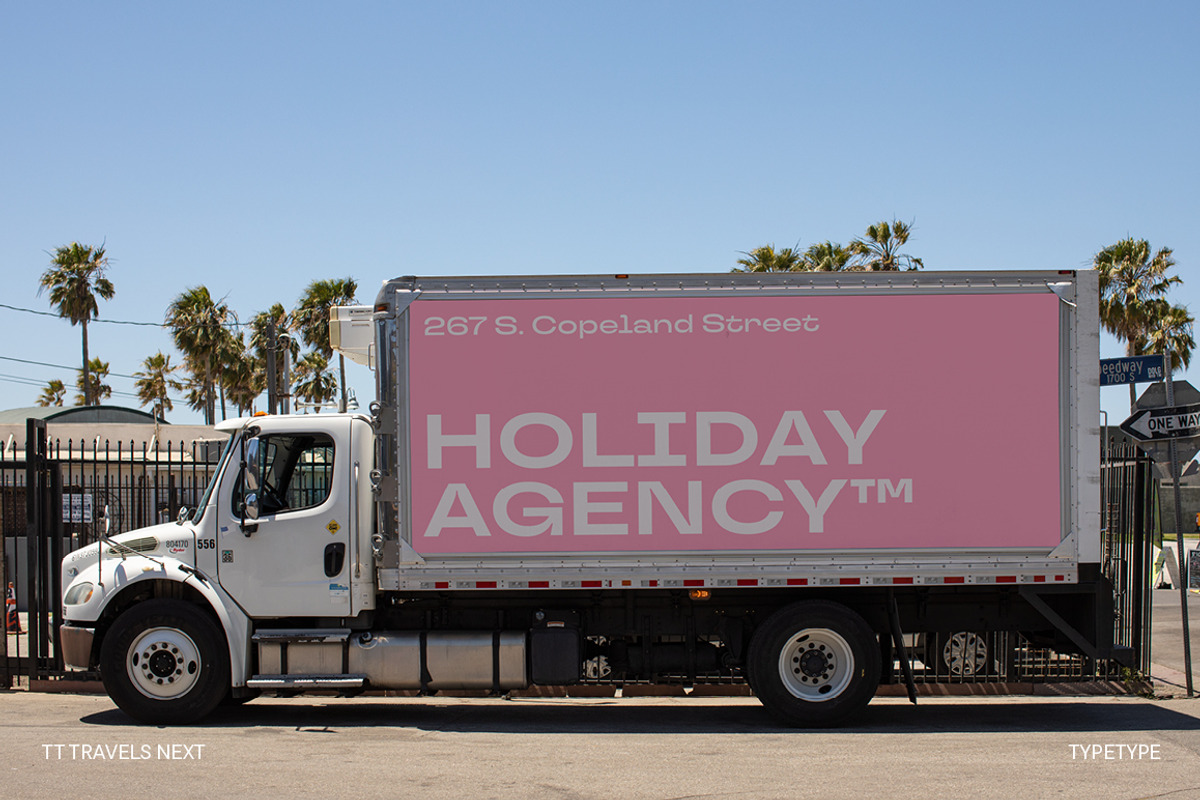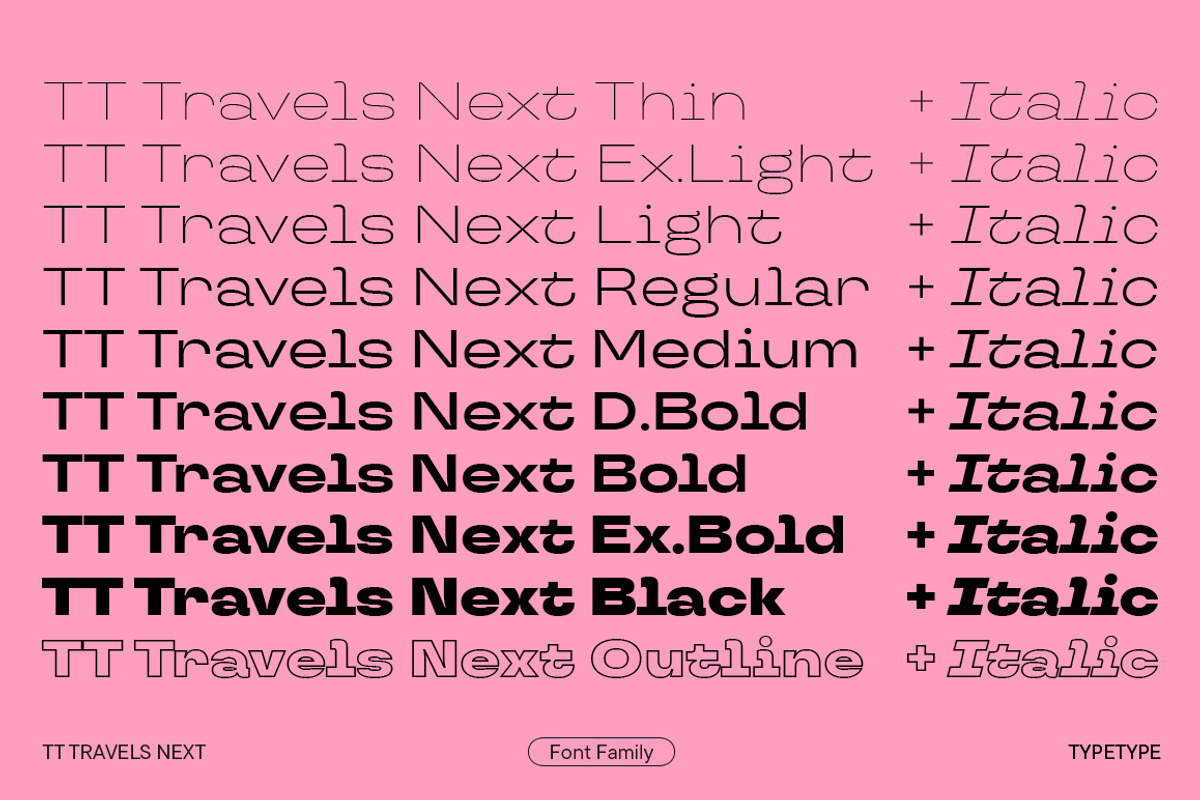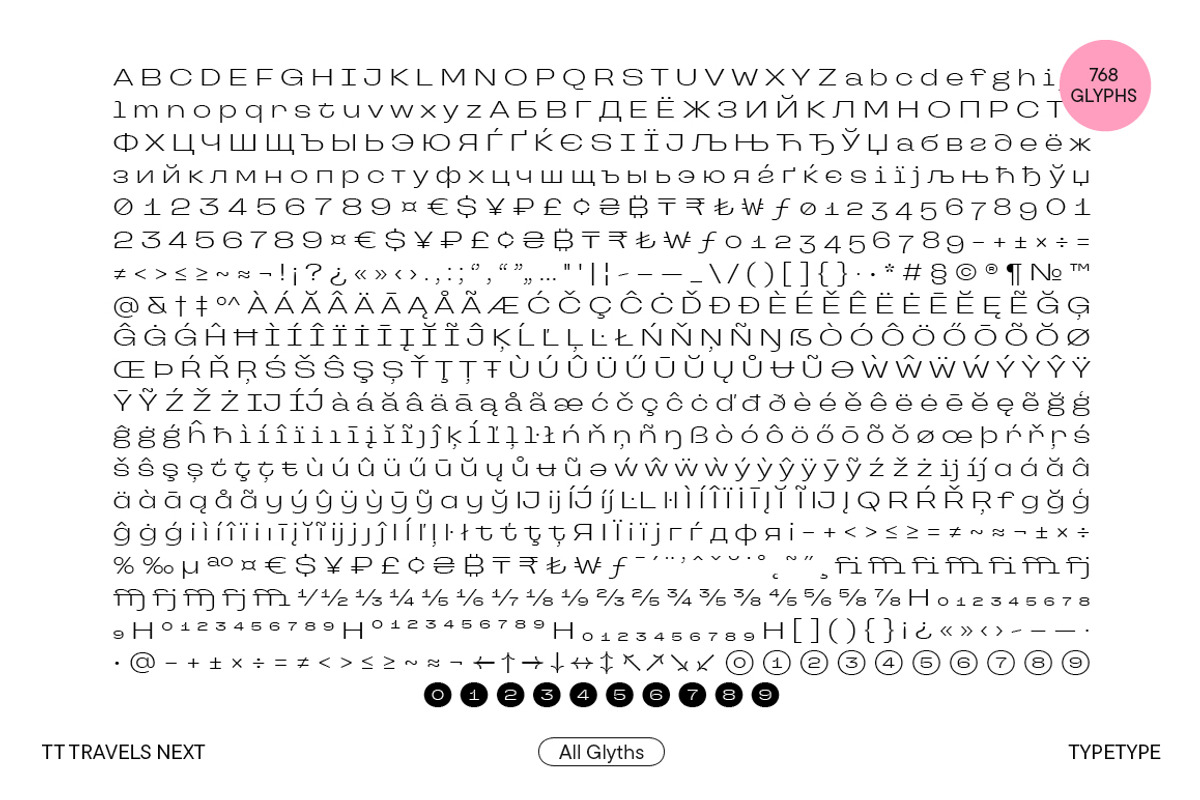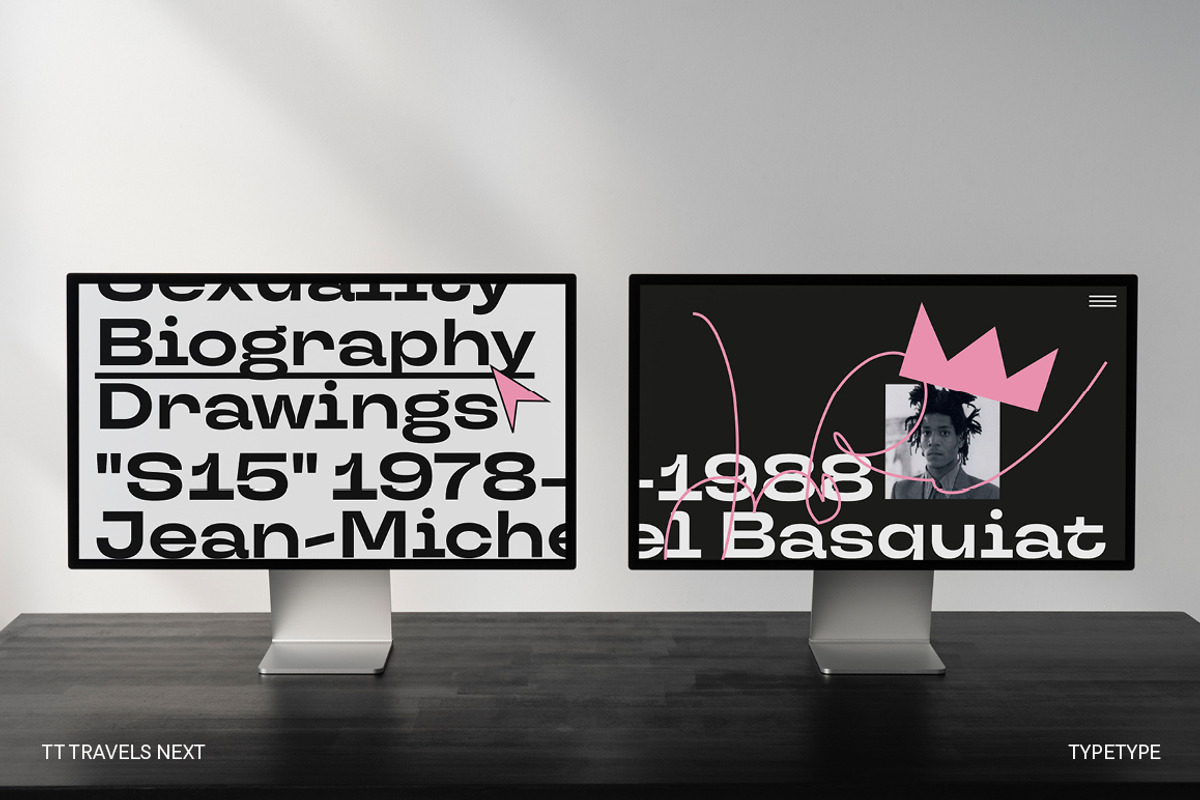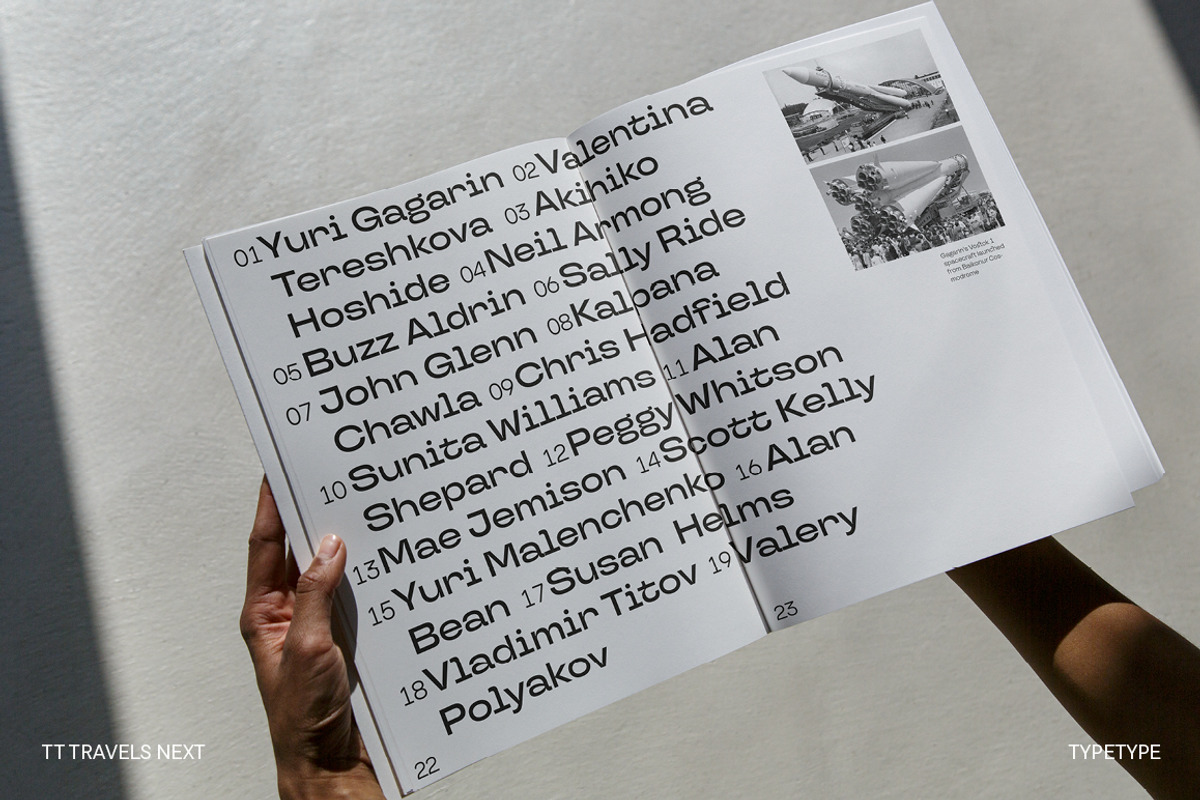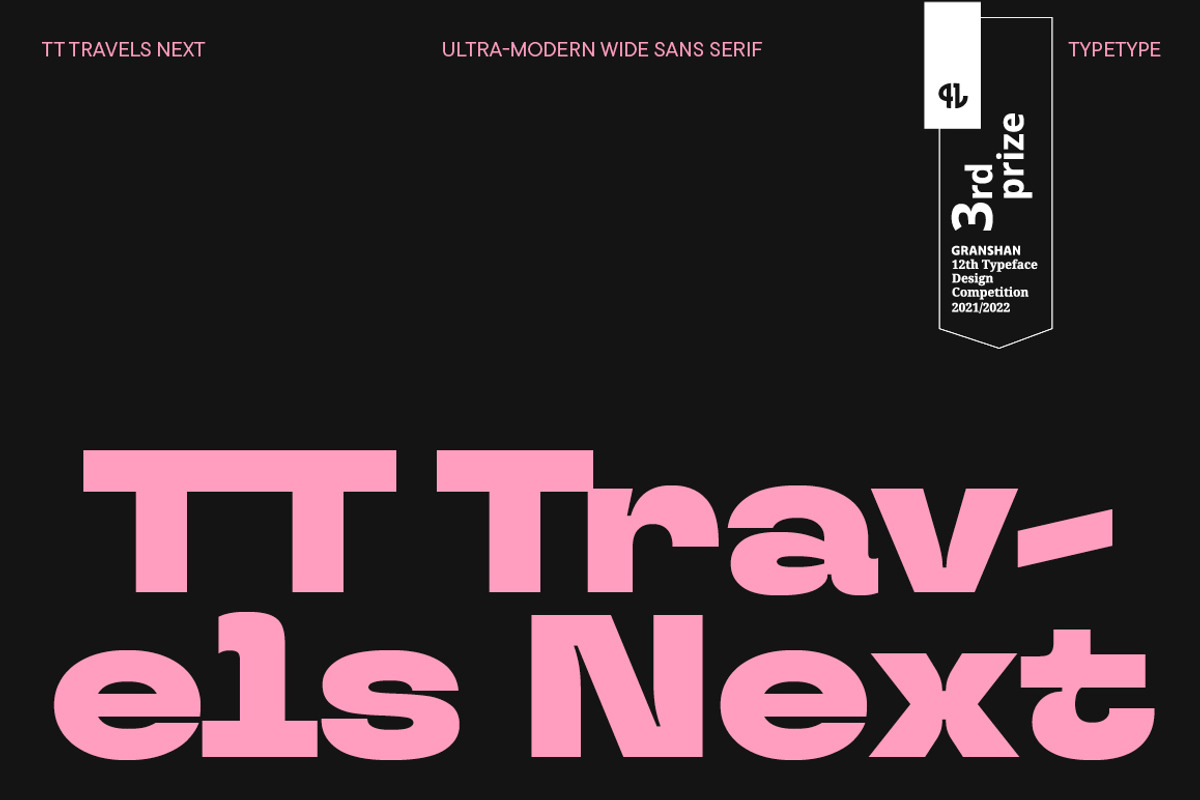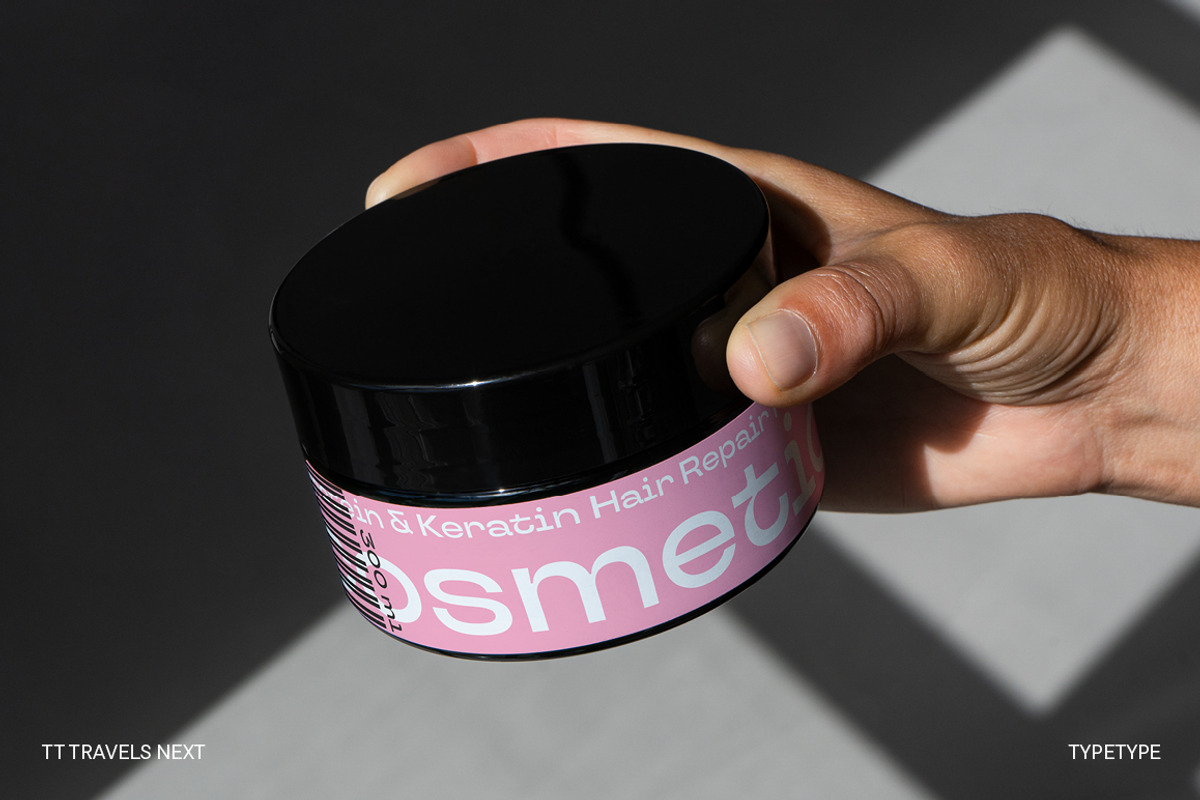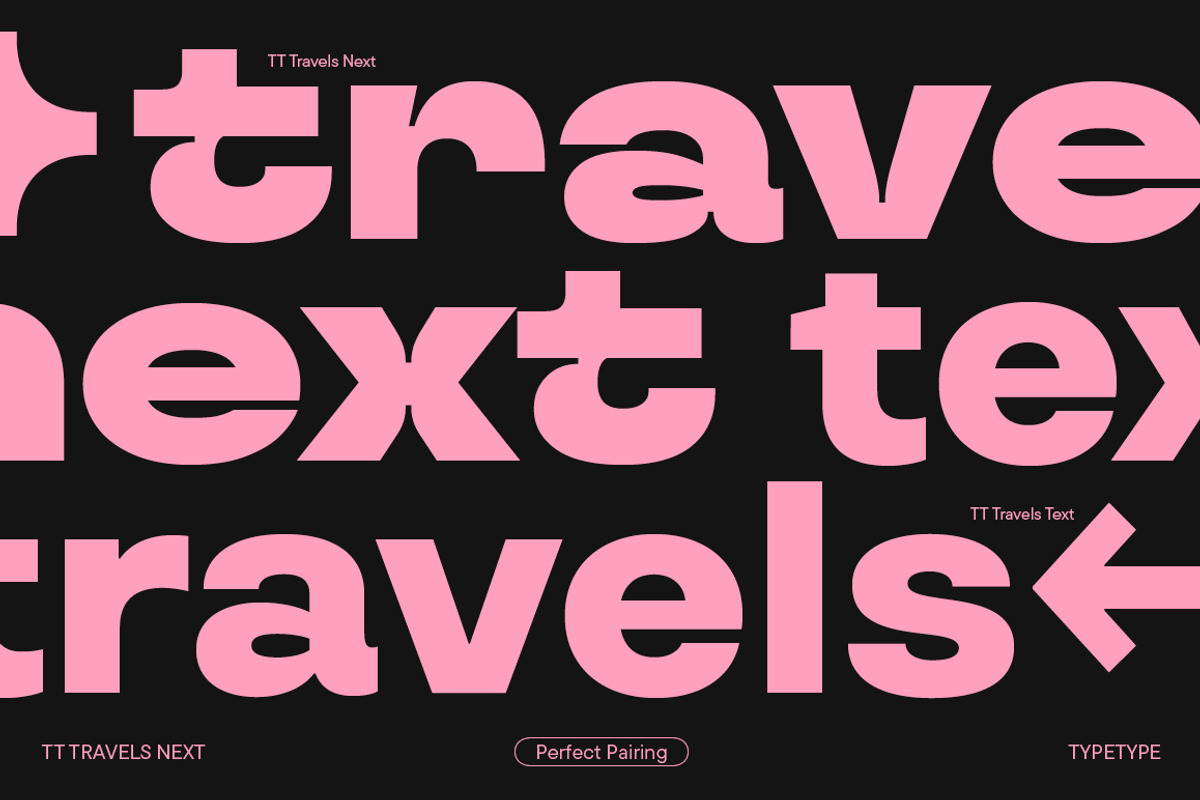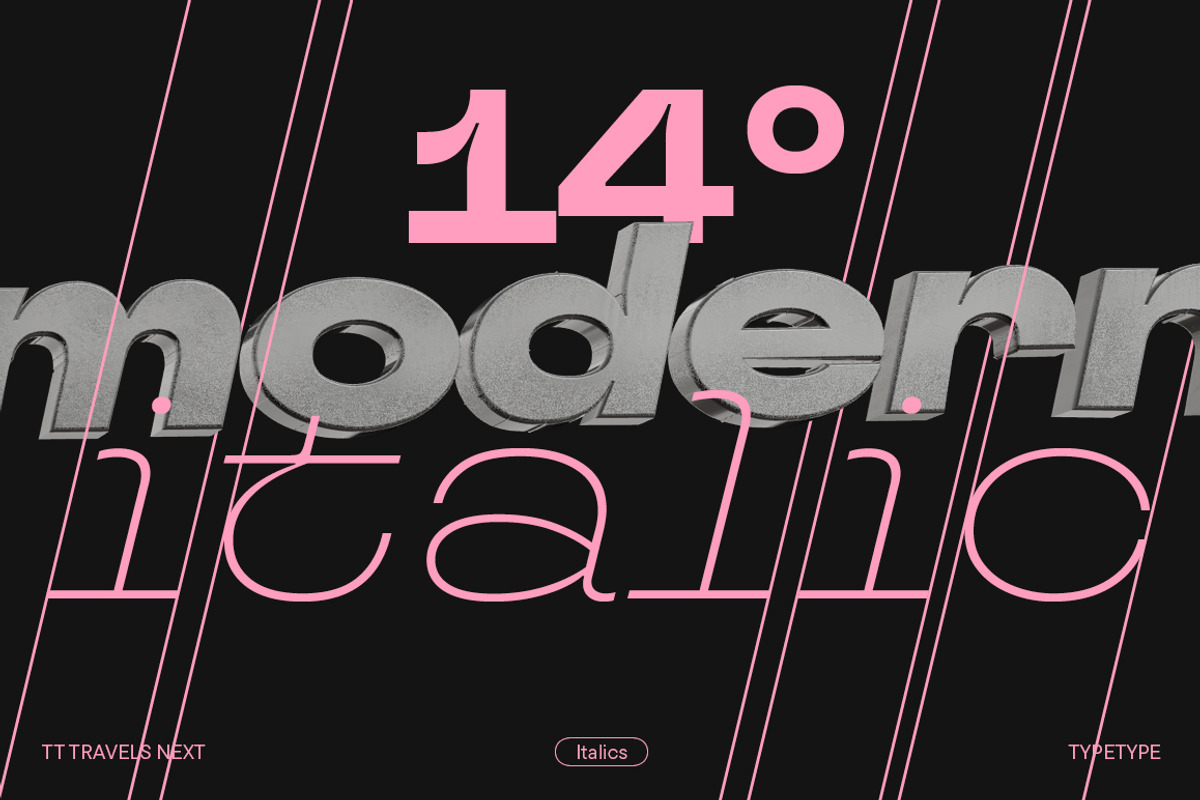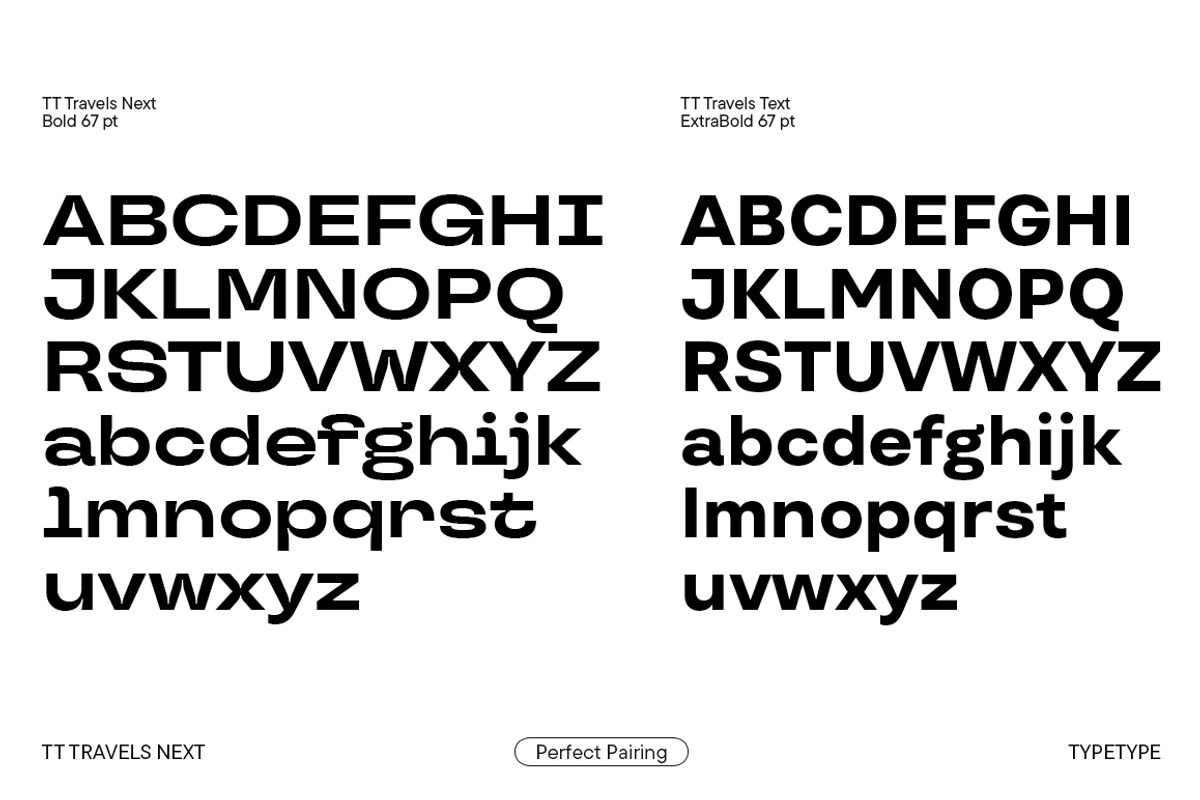
TT Travels Next
Introducing TT Travels Next—an experimental display typeface based on the original TT Travels!
TT Travels Next is an ultra-modern, wide sans serif. Wide proportions are one of the typeface’s distinctive features: there is almost no glyph narrowing when transitioning from bold to thin font styles. Besides, the font stands out for its extra closed aperture, low contrast, and noticeable ink traps. Interestingly, TT Travels Next does an exceptional job blending smooth and sharp forms, which makes it highly versatile, unusual, and attractive. We also increased the slant angle of the Italic font styles to 14 degrees so you can create a crisp and dynamic text look.
When designing TT Travels Next, we aimed to explore what the original TT Travels would look like if it were transformed into a rebellious and straightforward punk, rejecting its conformity and compromise. So, we infused the new typeface with a radical personality and put its expressive elements in the spotlight.
This stylish and ultra-modern typeface is a perfect match for working with layouts, be it printing or web formats. TT Travels Next has two outline font styles that complement the roman ones perfectly and can also serve as accent fonts. In addition, we implemented a variable font with weight and slant variation axes, allowing designers to adjust the font to fit their needs or requirements.
TT Travels Next includes:
- 21 font styles: 9 roman, 9 italic, 2 outline styles, and one variable font;
- 757 characters in each font style;
- 26 OpenType features, counting in stylistic alternates, ligatures, arrows, and circled figures;
- 190+ languages support.